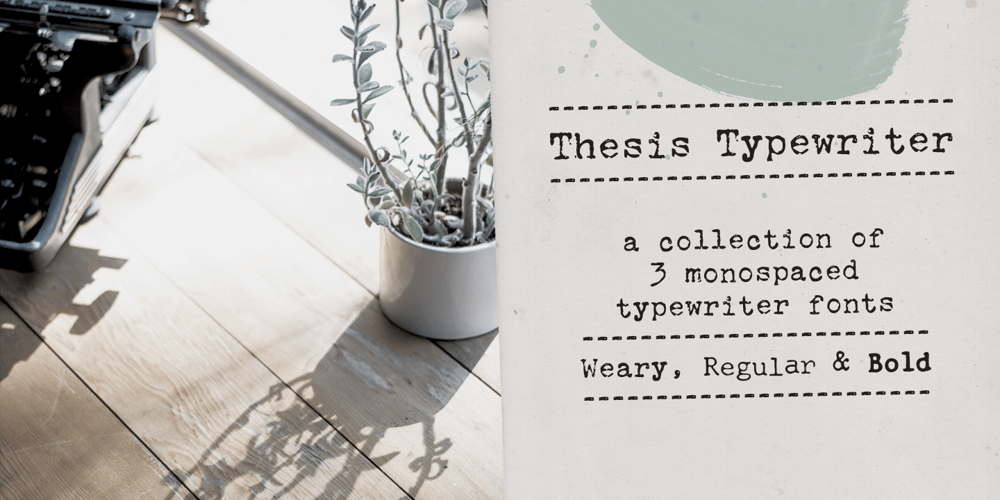
Thesis Typewriter Font Family was designed by Ana Parracho and published by Ana’s Fonts. Thesis Typewriter contains 3 styles and family package options. Thesis typewriter is a typewriter font collection that includes 3 typewriter fonts, sampled from three different thesis and reports from the 60s and 70s. Thesis Typewriter Weary has a textured look, while Thesis Typewriter and Thesis Typewriter Bold are smooth and include math symbols and Greek letters that will look great in digital collages.This collection is perfect for authentic vintage designs and digital collages, but will also look great in modern logo design, in branding and packaging.